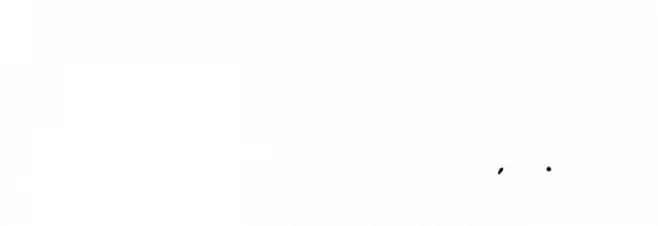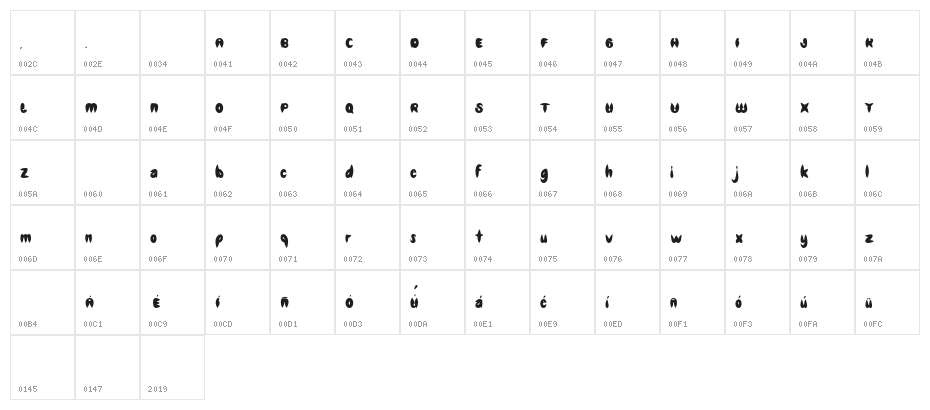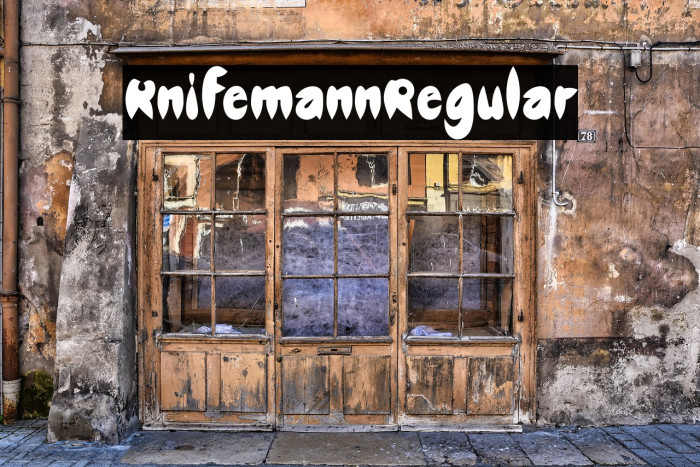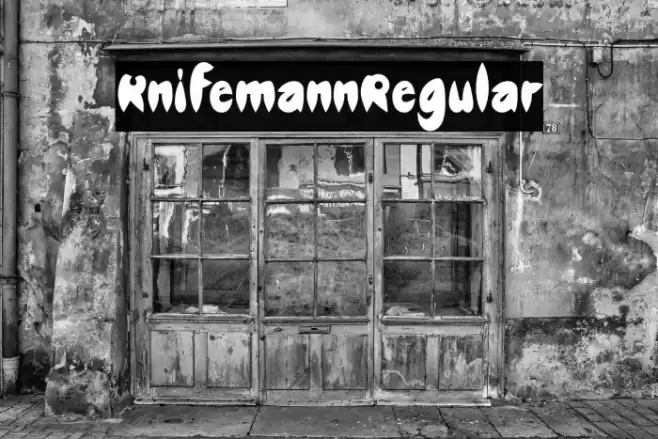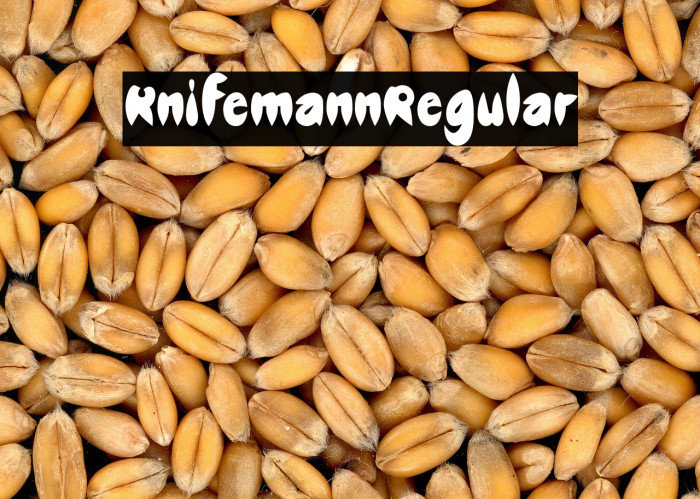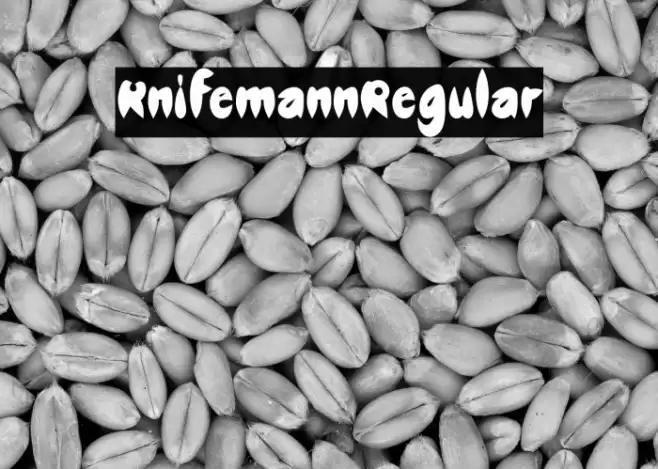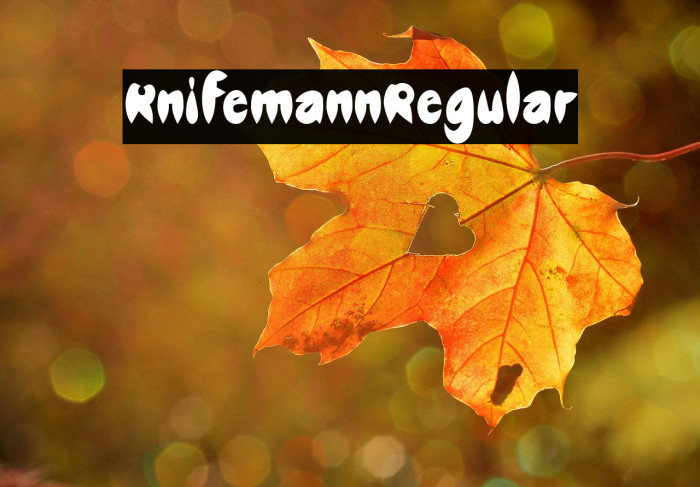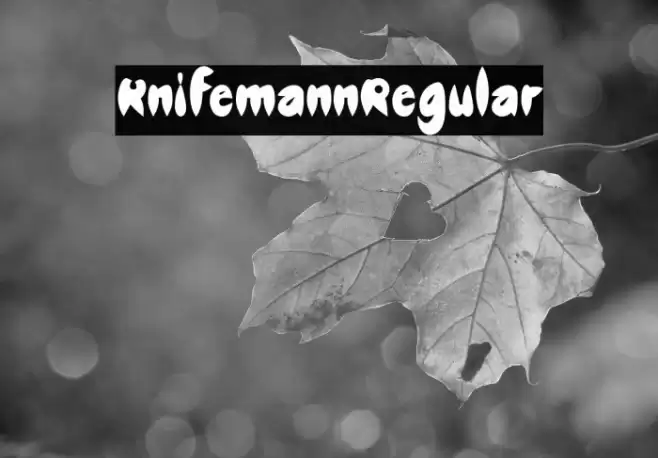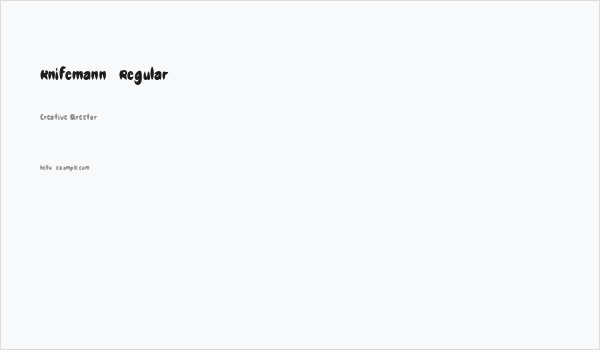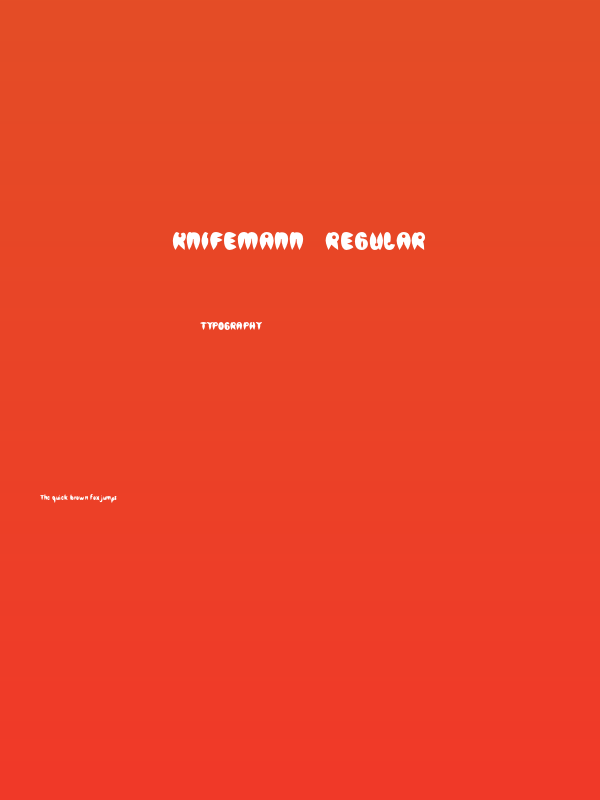
Knifemann-Regular Font
Knifemann-Regular Description
This font features bold, jagged edges with a playful yet edgy appearance. The characters are uniquely shaped, giving off a hand-cut, almost stencil-like vibe. The uppercase letters are particularly striking, with sharp angles and a dynamic presence. The lowercase letters maintain a consistent style, offering a cohesive look across the board. The numbers and special characters follow the same design principles, ensuring uniformity. This font's distinct style makes it stand out, perfect for projects that require a bold and unconventional look.
| Proposed Projects | Ideal for posters, album covers, branding for edgy products, or any project needing a standout, artistic touch. |